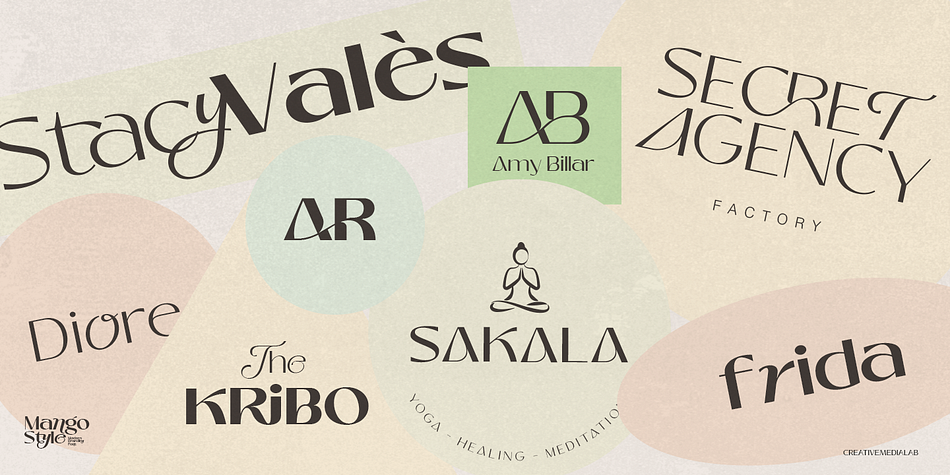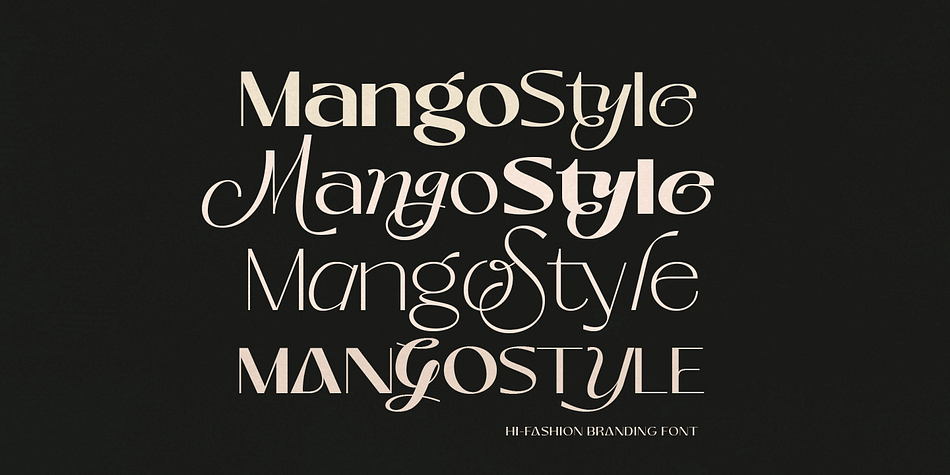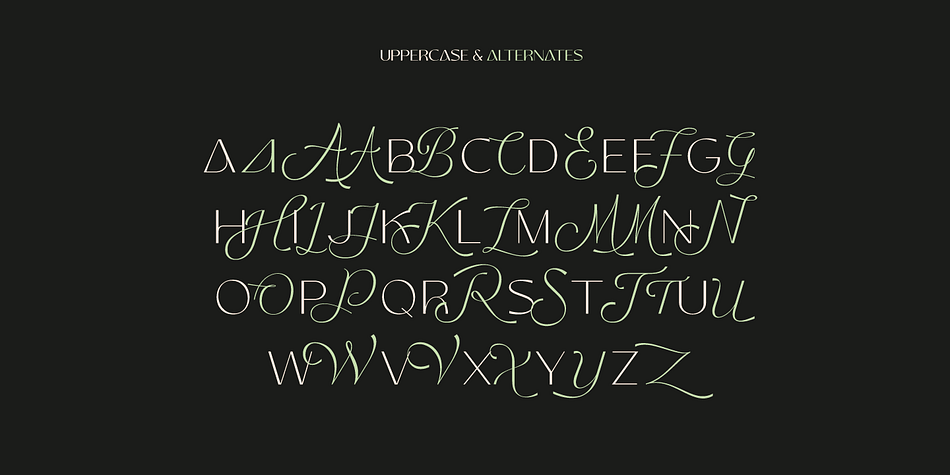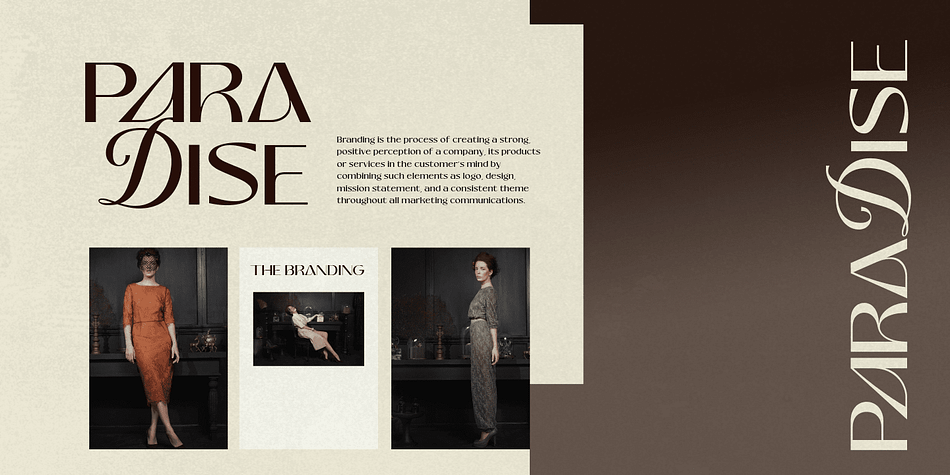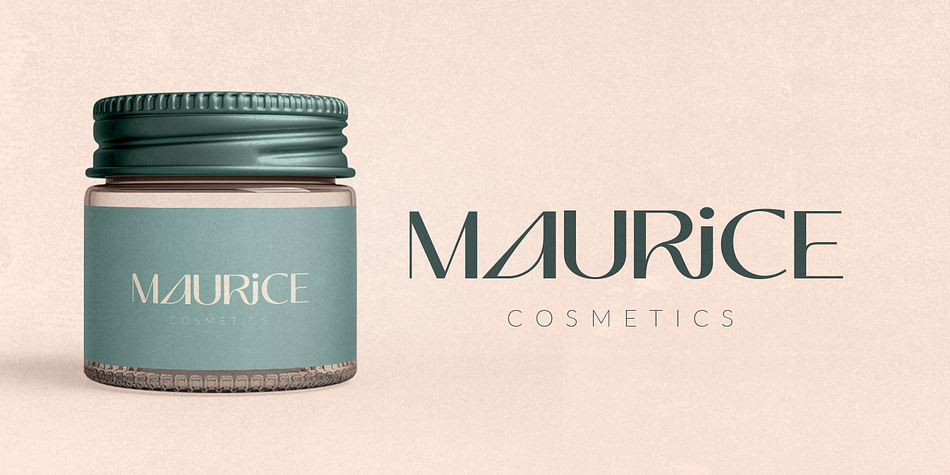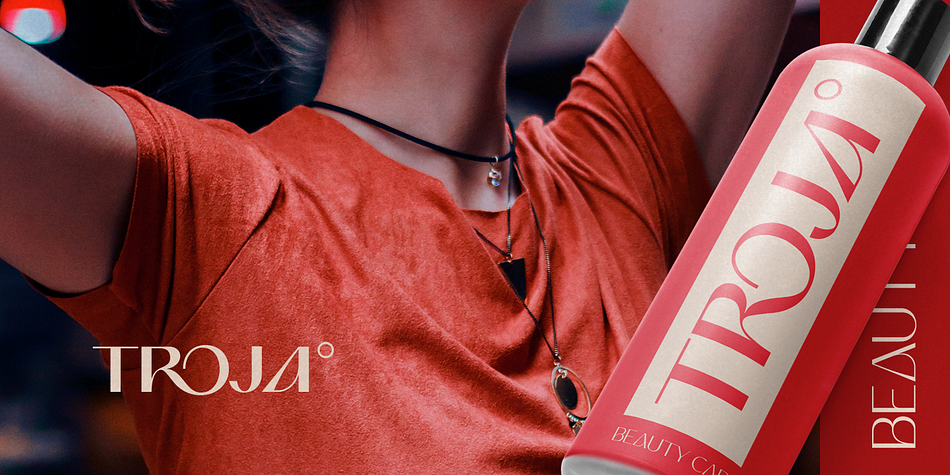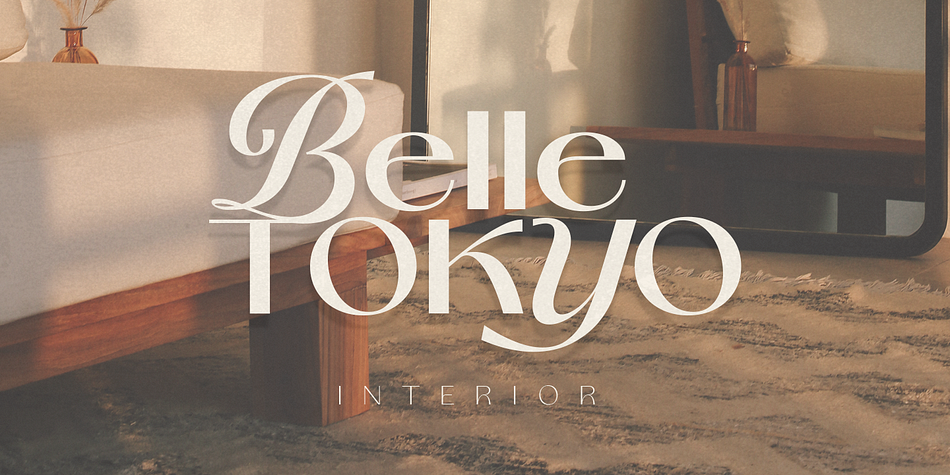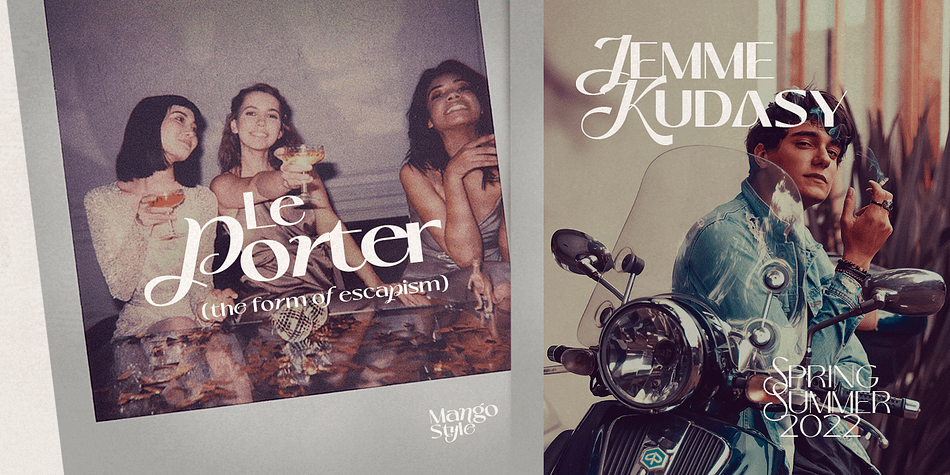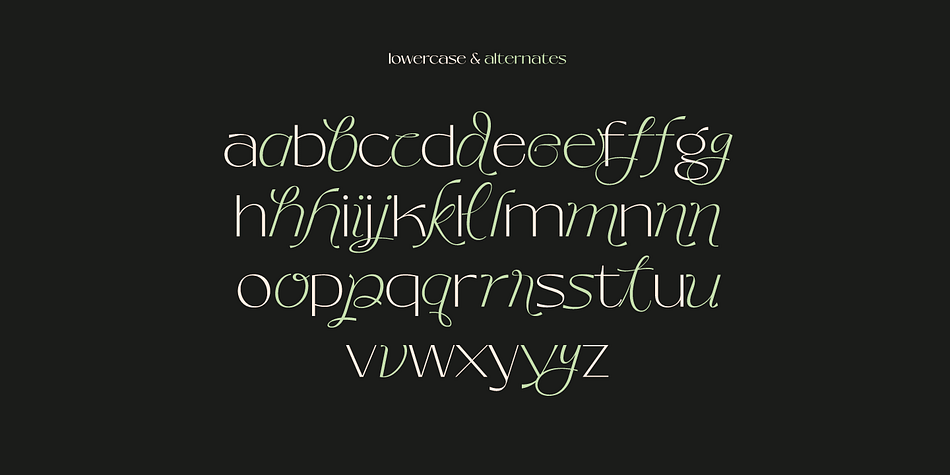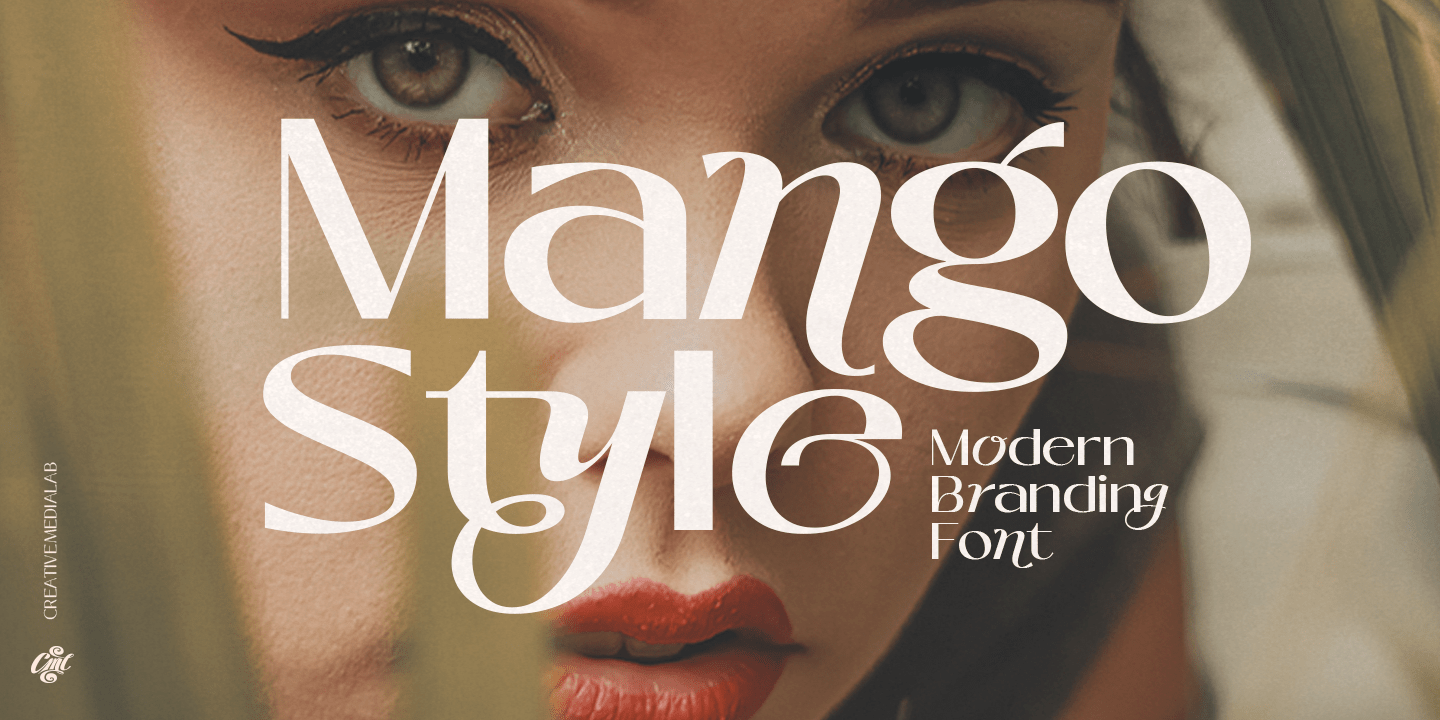
Mango Style is a display sans font family. This typeface has ten styles and was published by Creative Media Lab.
Mango Style is a modern branding font with a stylish script alternates. this font is ideal for crafting logos for fashion, apparel brand, luxury projects.
Tips: Insert stylish alternates between words for more fashionable look